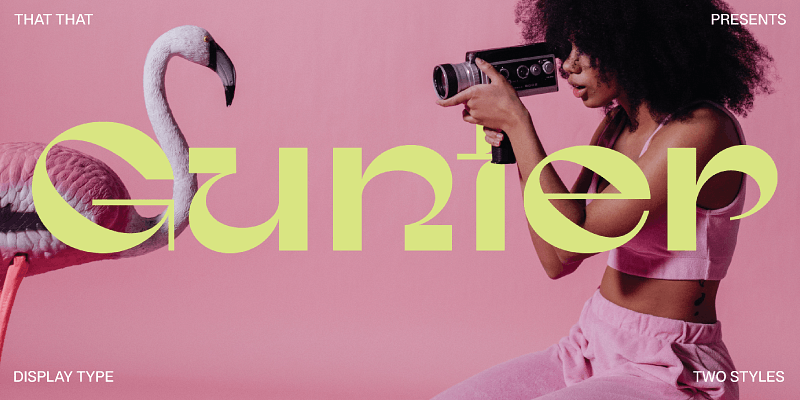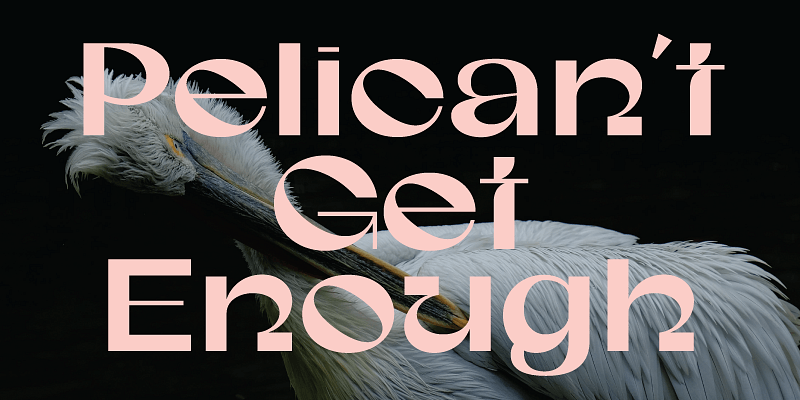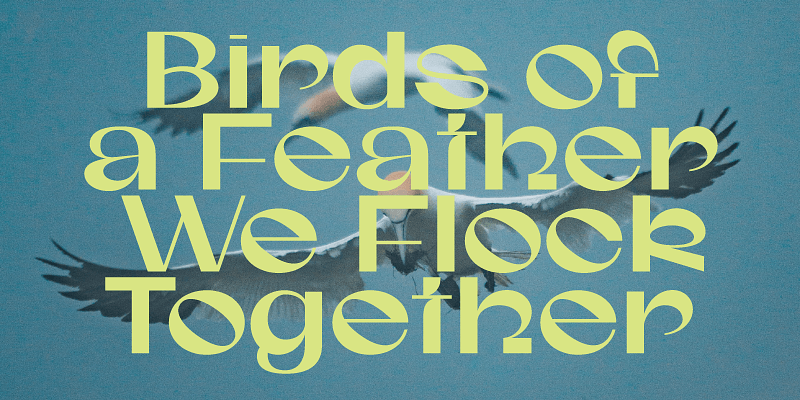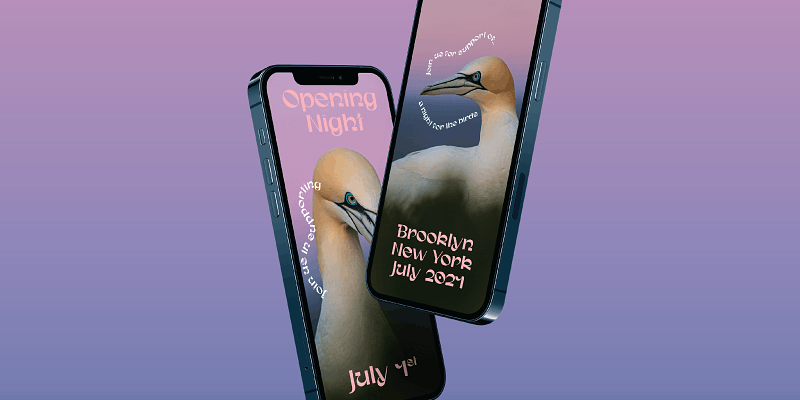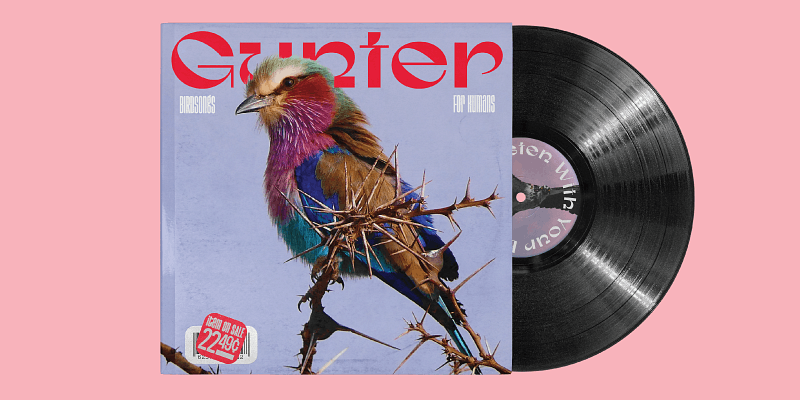
Gunter is a bold modern quirky half serif half sans serif display font that is in a category all on its own. It has a super-strong grounded horizontal present with playful cuts and loops inspired by 60’s and 70’s design. It was designed with Social Media in mind as it is sure to stand out. It comes with an alternate style set with more traditional caps if you don’t want to get too crazy.